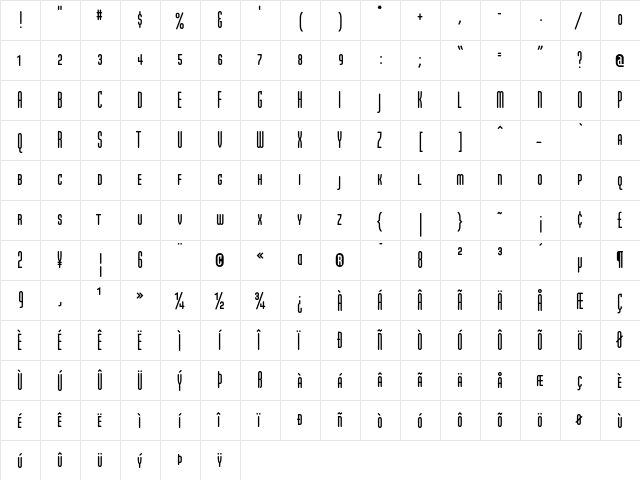
Modula RoundSansSmallCaps Font Preview
Modula RoundSansSmallCaps
Design Context for Modula Typeface
Modula softens its letterforms with rounded terminals, giving it an approachable, friendly quality that works well in consumer-facing and digital contexts.
A natural fit for tech startups, health and wellness brands, children's products, and friendly consumer apps.
Font Pairing: Pairs well with a rounded or humanist sans for body copy, maintaining the friendly tone without relying on Modula to carry extended reading.
Pro Tip: Pair Modula with a geometric sans for a balanced system — the rounded softness works as a warm counterpoint to harder-edged companions.